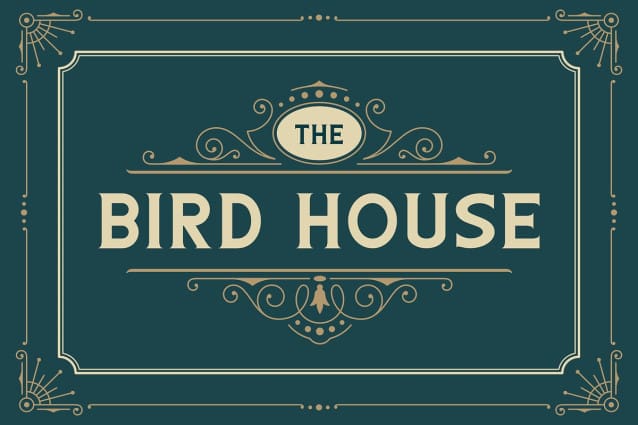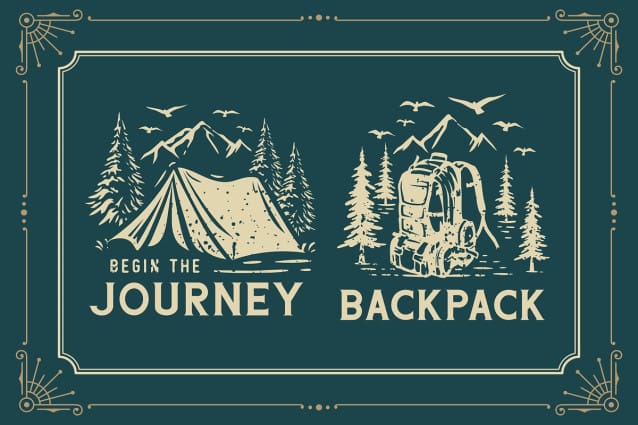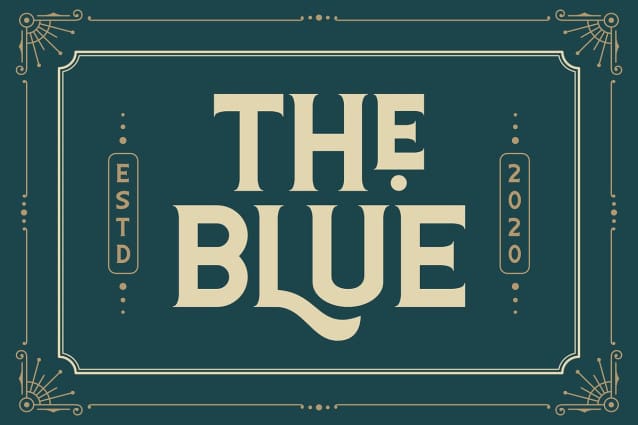
The Blue Font
The Blue Font is a vintage font that perfect for vintage logo design, poster, vintage label, headlines or packaging design. This font come with beautiful alternate, so this font combination allows you to easily build beautiful vintage designs.